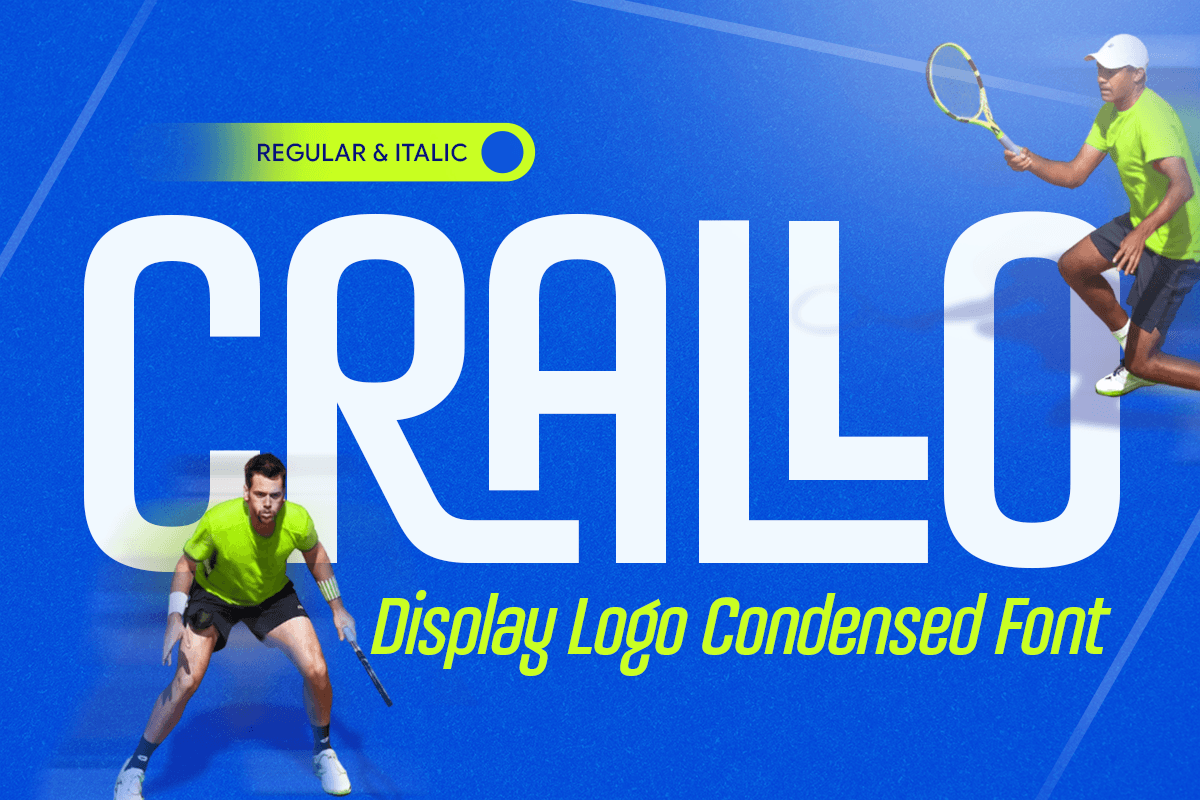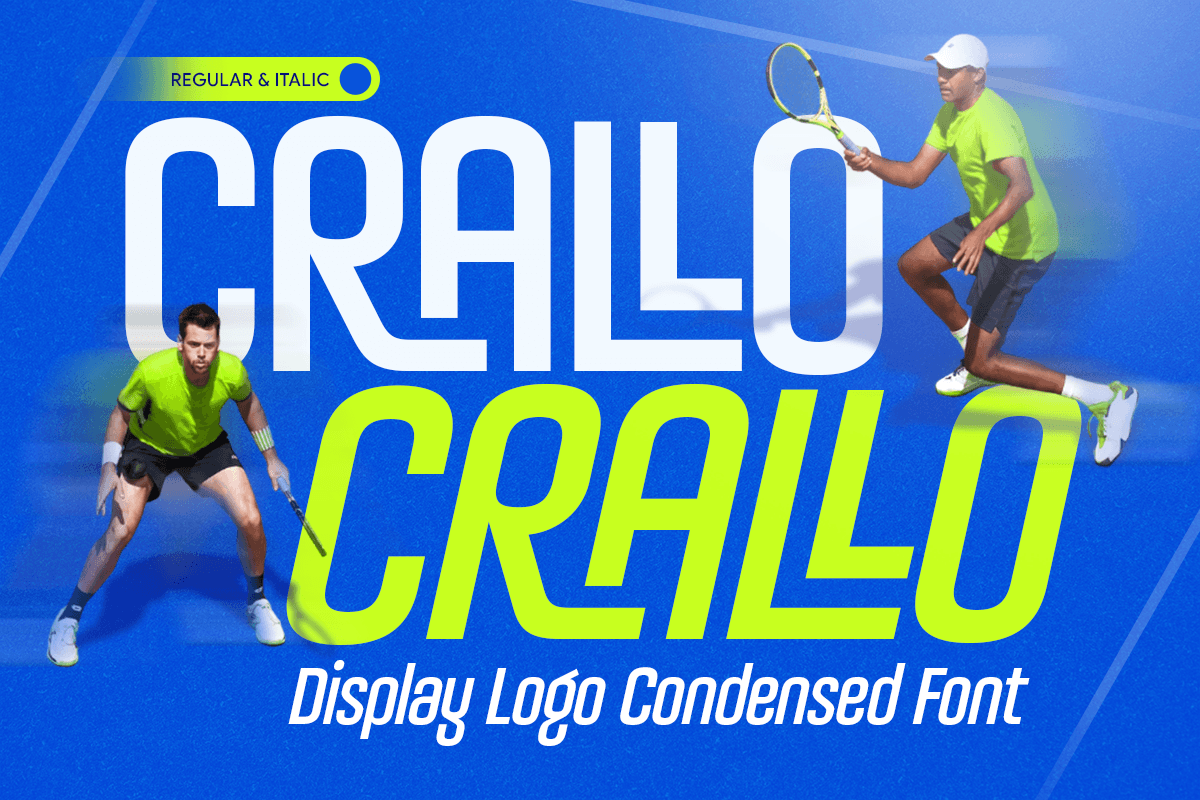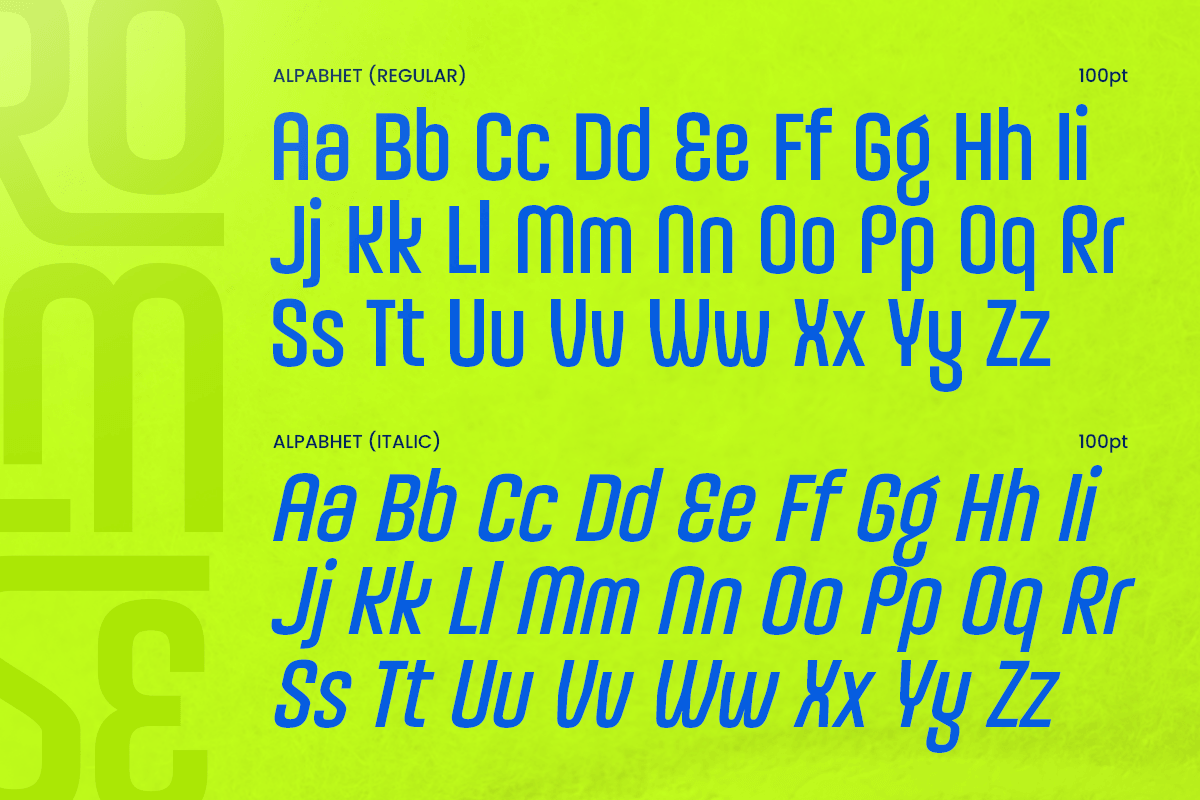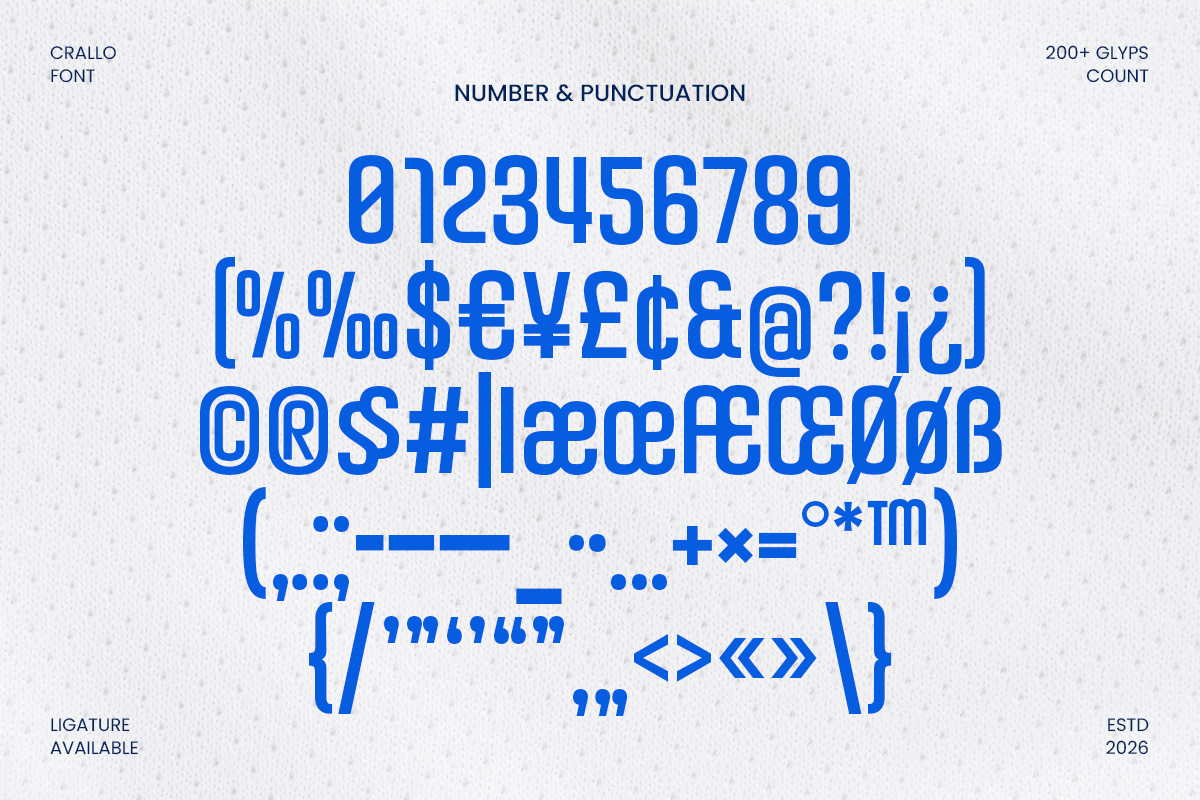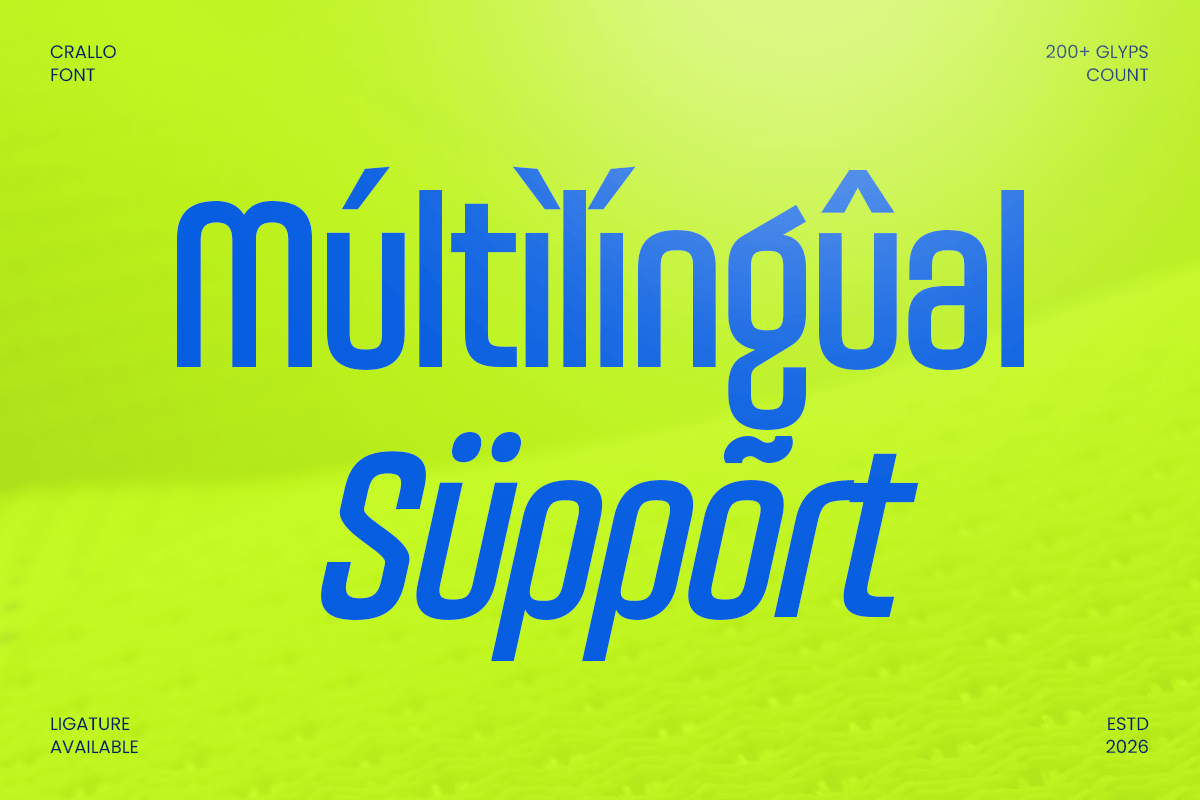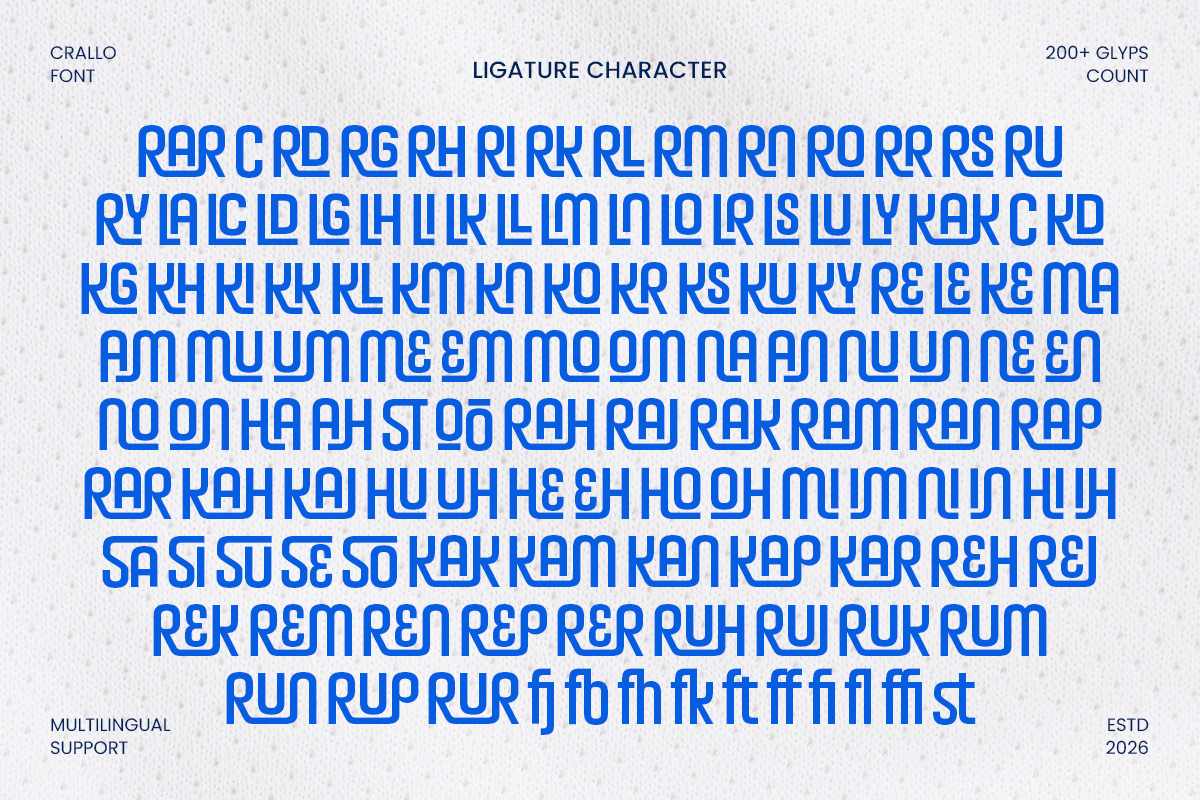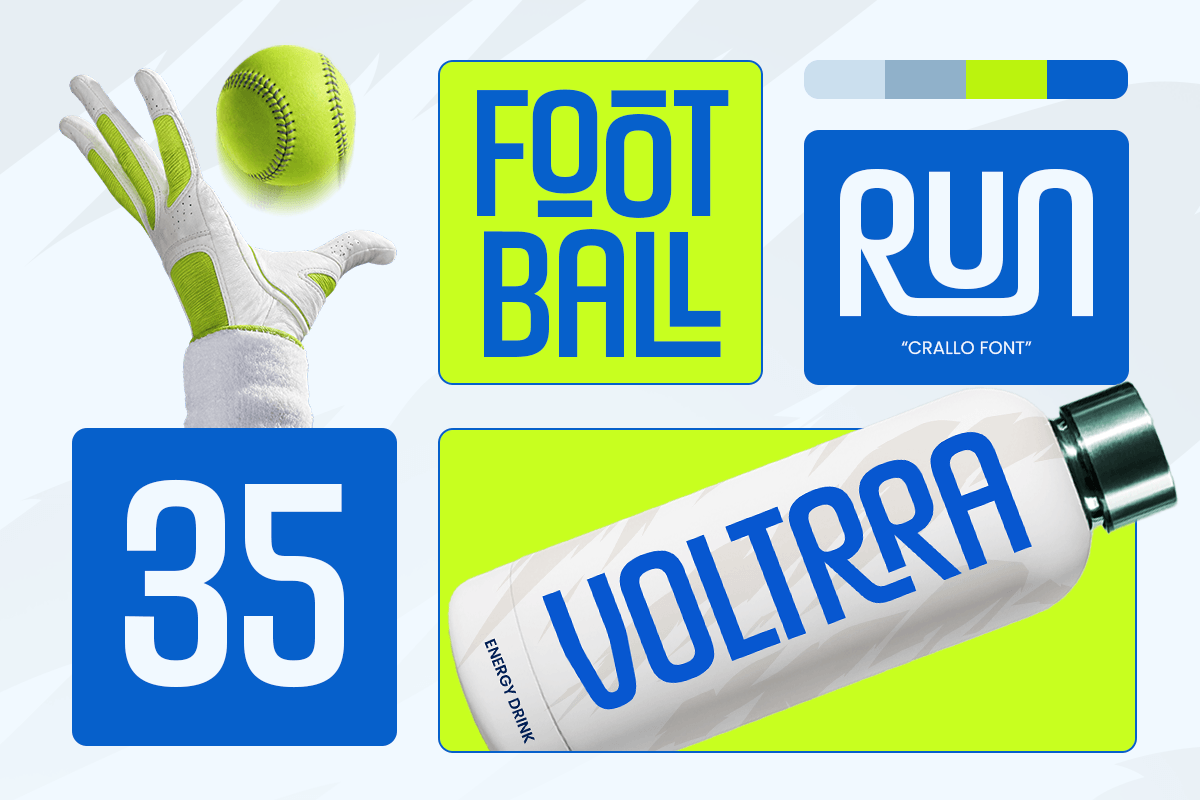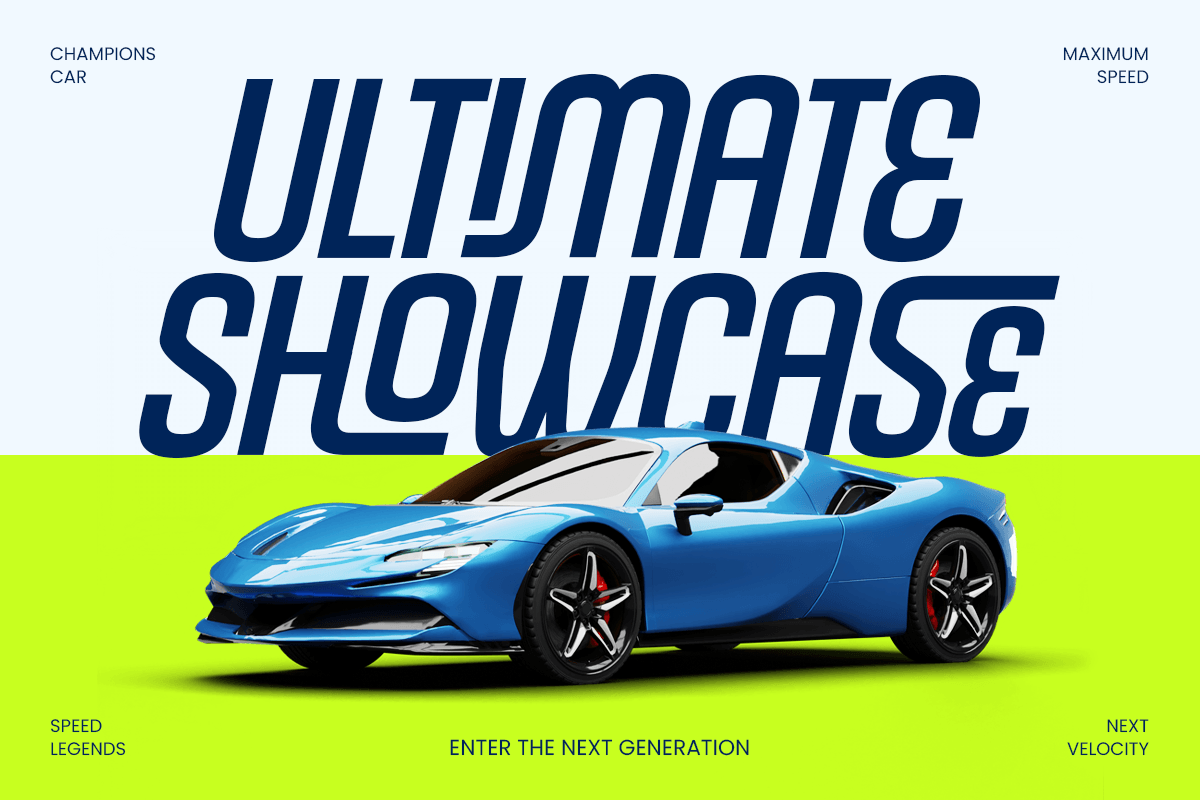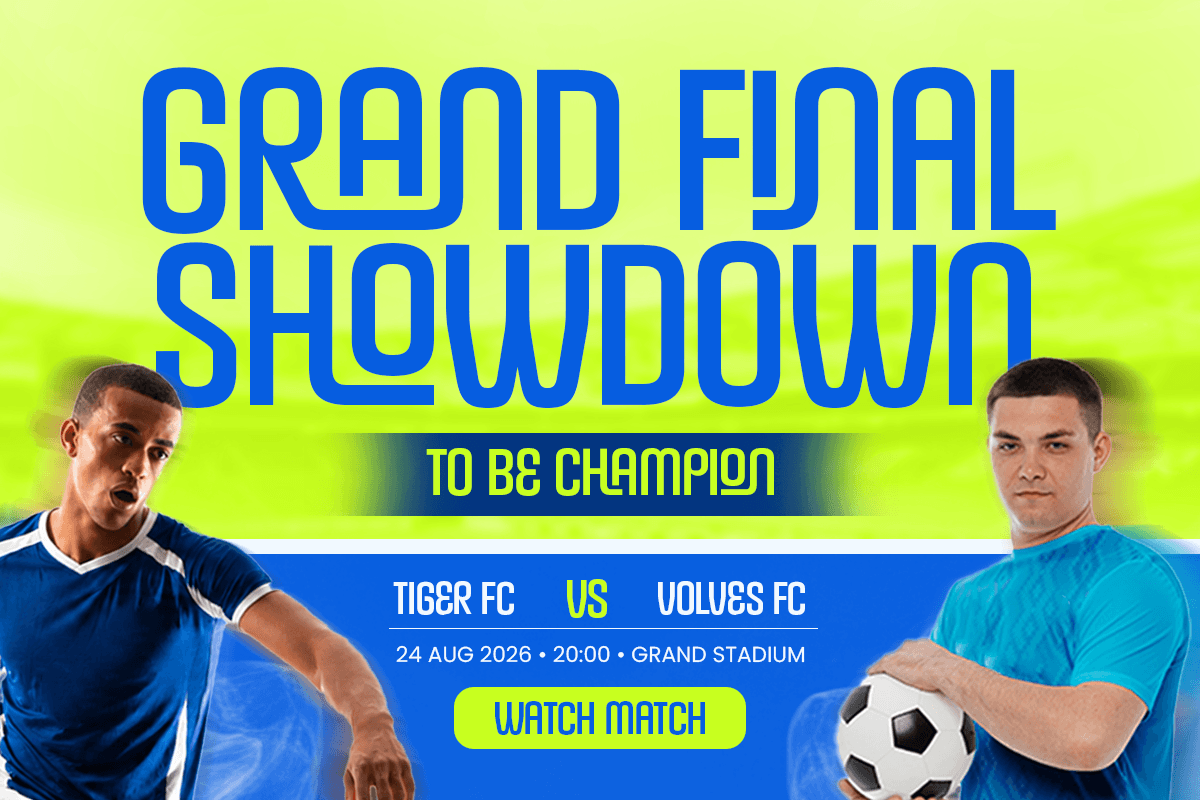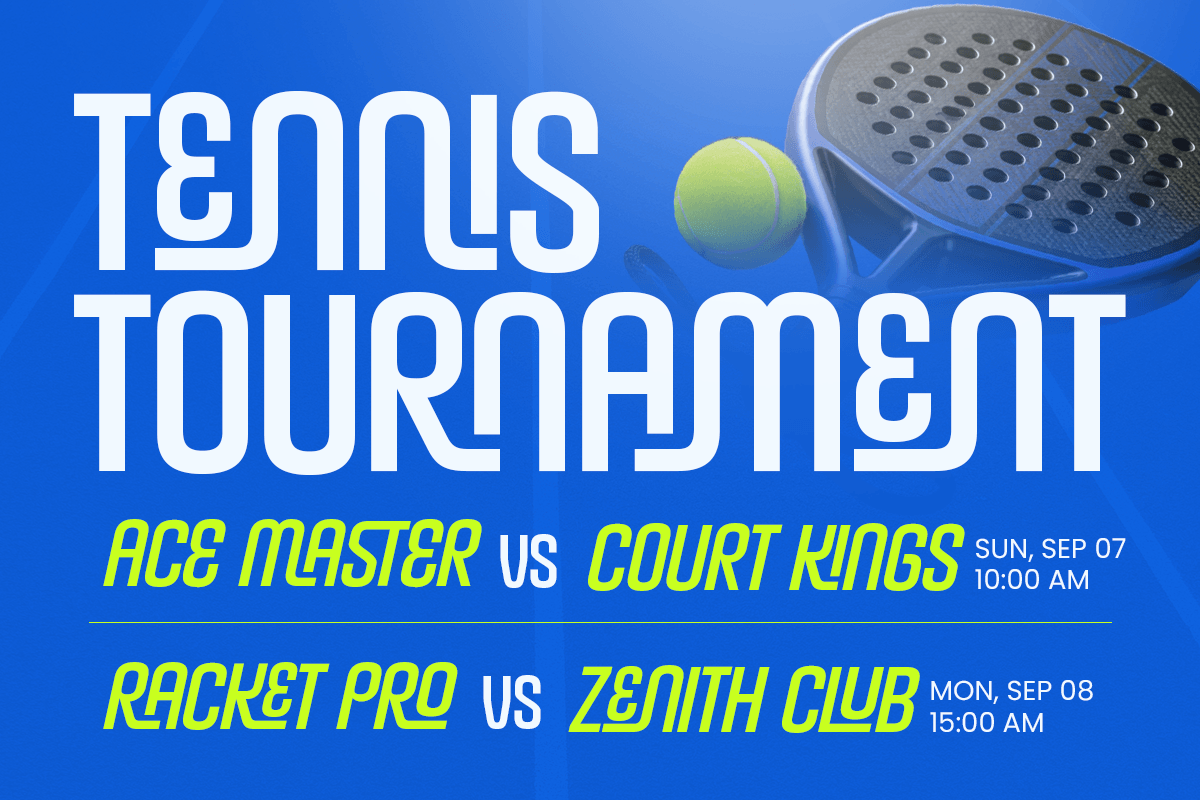
Crallo - Logo Condensed Font
Crallo is a logo condensed font designed with narrow proportions, clean structure, and a strong contemporary personality. Its compact letterforms create a confident visual rhythm, making it an excellent modern logo font for brands that need clarity, character, and impact.
Built for versatile identity design, Crallo works beautifully across logos, brand identity, packaging, posters, headlines, signage, advertising, social media, and editorial layouts. Its condensed construction helps designers create powerful typography while making efficient use of limited space.
From modern corporate identities and fashion labels to product packaging, web graphics, UI design, and promotional campaigns, Crallo delivers a distinctive professional presence. Its streamlined appearance makes it especially effective for bold wordmarks, memorable logotypes, and contemporary visual systems.
Crallo – Logo Condensed Features
- Clean condensed letterforms with modern character
- Strong proportions designed for logo and branding projects
- Ideal for wordmarks, packaging, posters, and headlines
- Excellent for signage, advertising, and editorial layouts
- Includes uppercase, lowercase, numerals, and punctuation
- Great for both digital and print projects
- OpenType features for creative typographic flexibility
- Works well for social media, web graphics, and promotional design
Multilingual Support
Afrikaans, Albanian, Asu, Basque, Bemba, Bena, Breton, Chiga, Cornish, Dutch, English, Estonian, Filipino, Finnish, Friulian, Galician, German, Gusii, Indonesian, Irish, Italian, Kabuverdianu, Kalenjin, Kinyarwanda, Luo, Luxembourgish, Luyia, Machame, Makhuwa-Meetto, Makonde, Malagasy, Manx, Morisyen, North Ndebele, Nyankole, Oromo, Portuguese, Quechua, Romansh, Rombo, Rundi, Rwa, Samburu, Sango, Sangu, Scottish Gaelic, Sena, Shambala, Shona, Soga, Somali, Spanish, Swahili, Swedish, Swiss, and more.
Build a memorable visual identity with Crallo – a condensed logo font made for bold modern branding. ✨